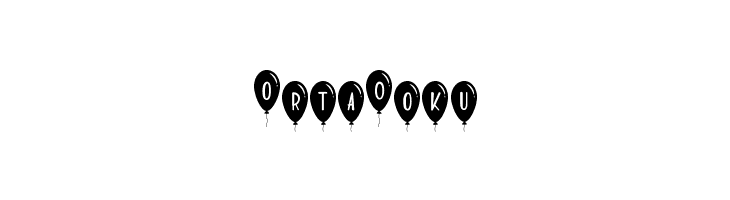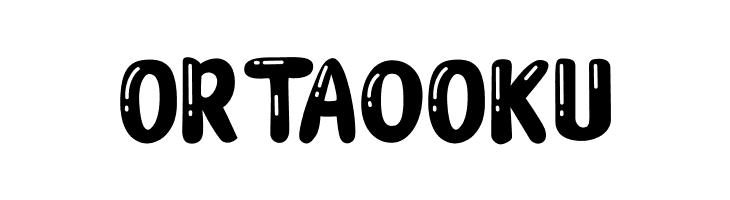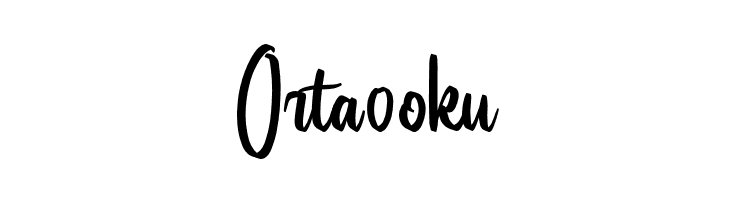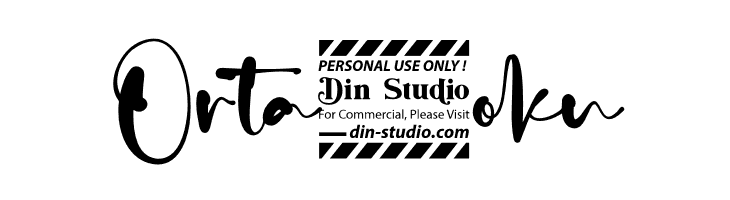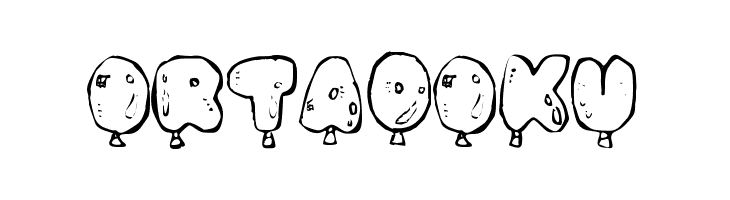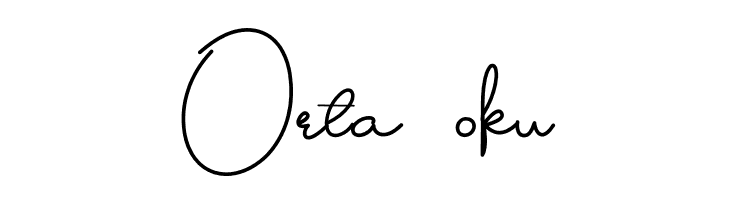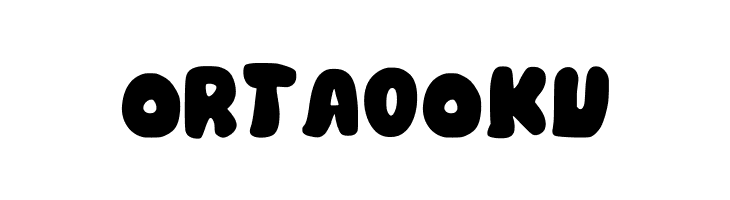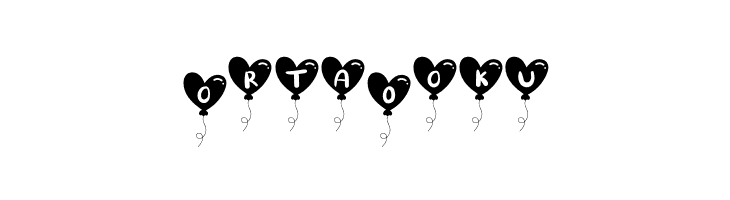
Big Ballon Regular Font
A bold, playful font with rounded, balloon-like characters.
Oh, Balloney Font
A playful, balloon-inspired font with a hand-drawn, whimsical style.
Choco Bubble Ballon Font
A playful, balloon-like font with bold, rounded characters.
Candy Ballon Demo Font
A playful, bold font with rounded, decorative letterforms.
Lovely Ballon Font
A playful font with characters inside heart-shaped balloons, ideal for festive and romantic themes.
BallonesScriptDEMO-Regular Font
A playful, handwritten script font with bold strokes and dynamic slant.
Ballone Font
A bold, textured brush script font with dynamic, hand-painted strokes.
Ballon Midair personal use Font
A lively and expressive handwritten script font with dynamic strokes.
Claping Ballon Free Version Font
A whimsical, rounded handwritten font suitable for informal and fun designs.
Ballondior Font
A handwritten, cursive font with a casual, personal style.